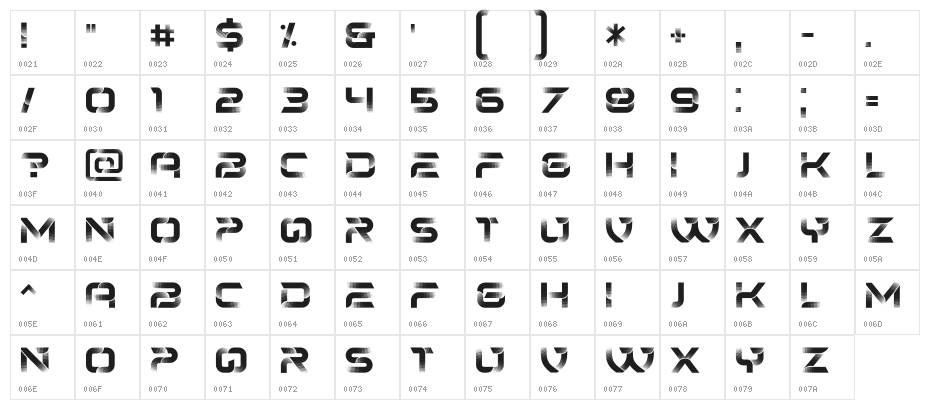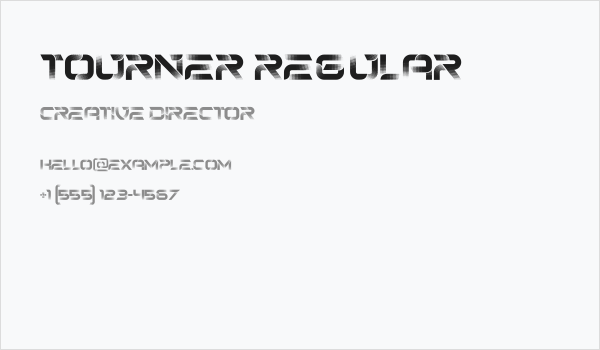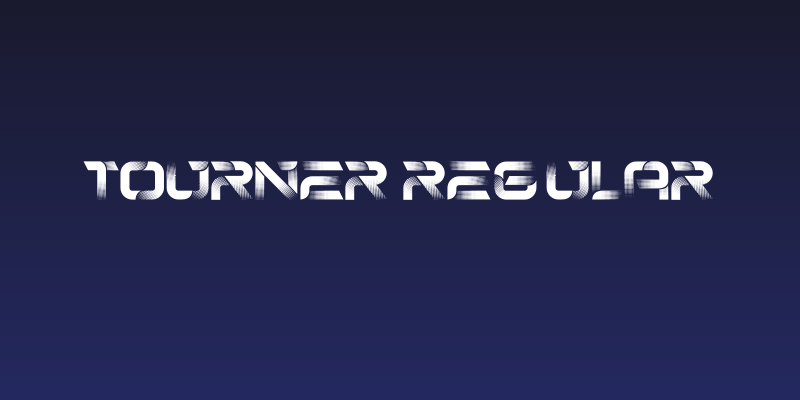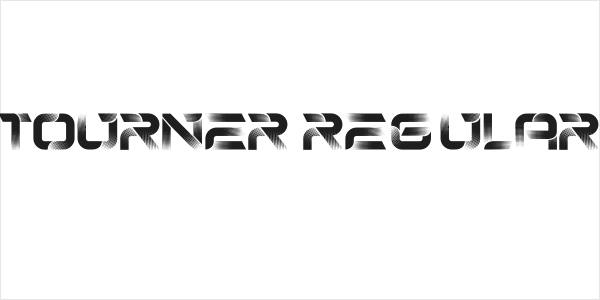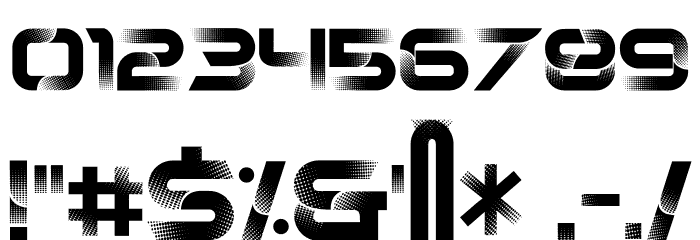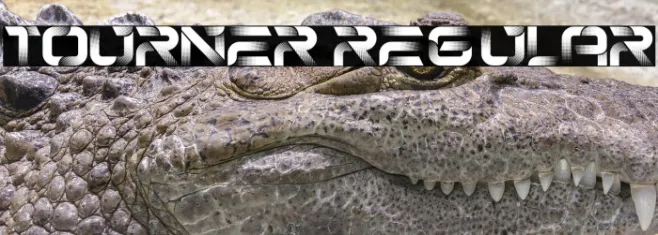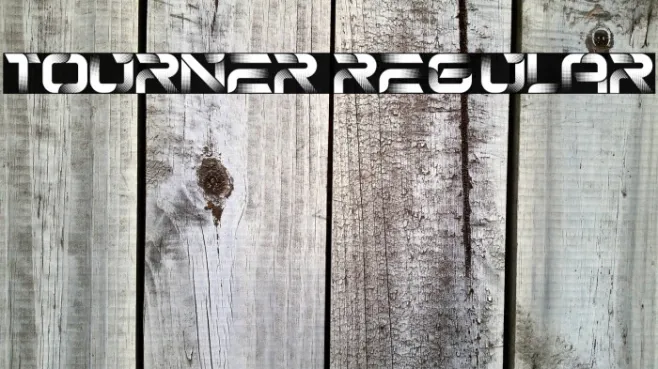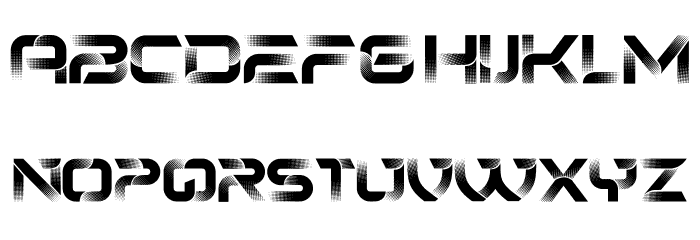
Tourner Regular Font
Tourner Regular Description
This font features a bold, futuristic design with a unique halftone effect that gives each character a dynamic, textured appearance. The letters are constructed with geometric precision, incorporating sharp angles and smooth curves. The halftone pattern creates a sense of movement and depth, making the font stand out in any design. It is particularly effective for projects that require a modern, edgy look. The characters are evenly spaced, ensuring readability while maintaining their distinctive style. This font is ideal for creative projects that aim to capture attention and convey a sense of innovation.
| Proposed Projects | Ideal for posters, album covers, video game titles, and branding for tech companies. |